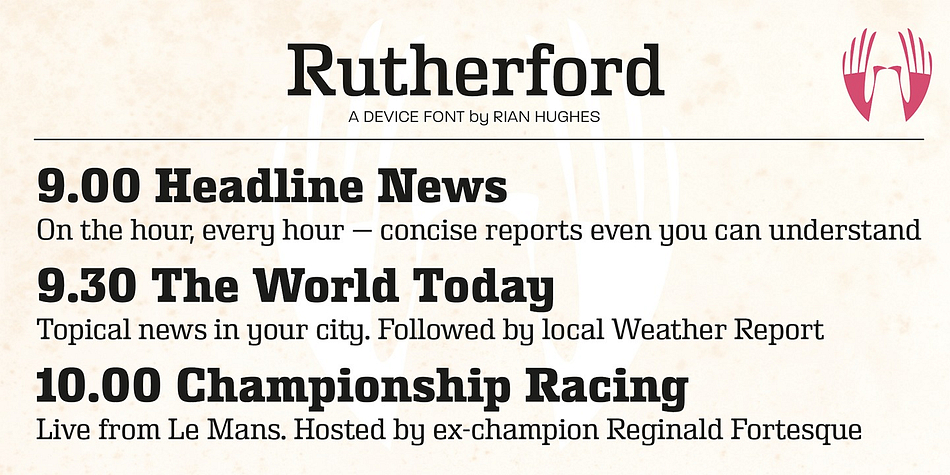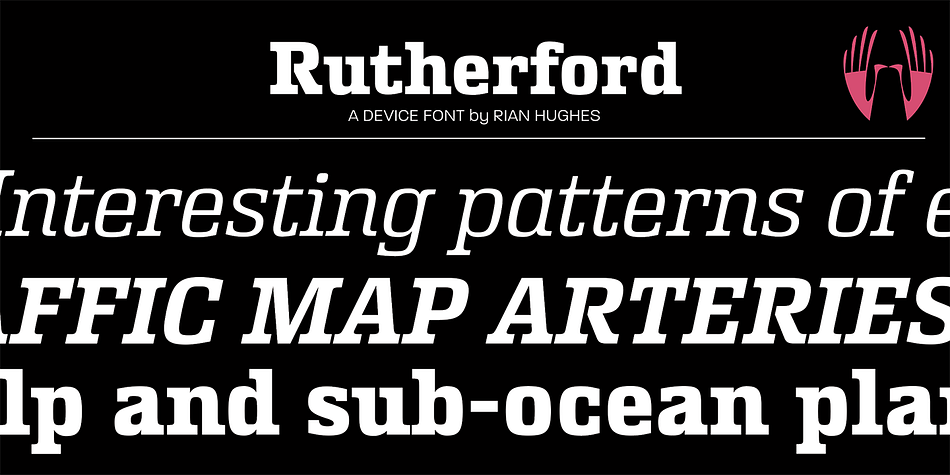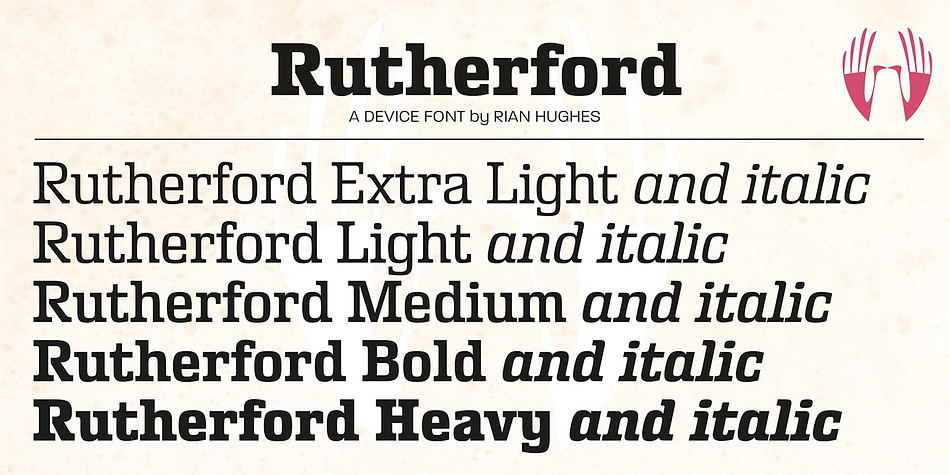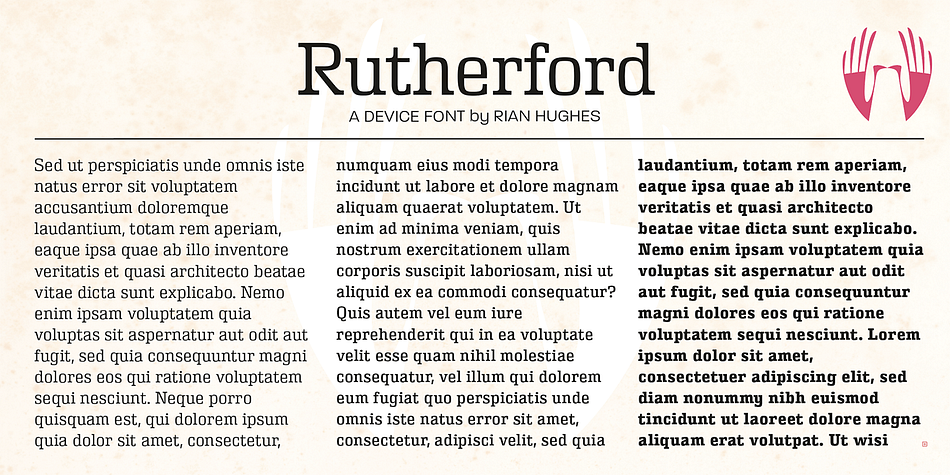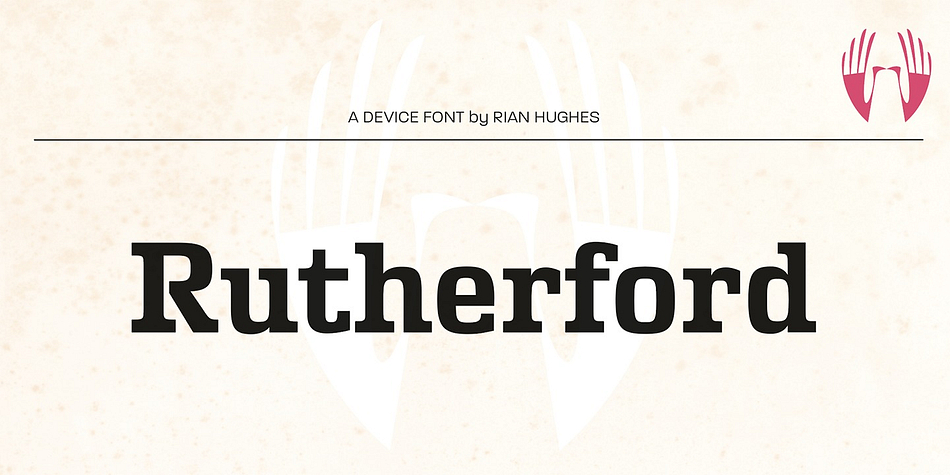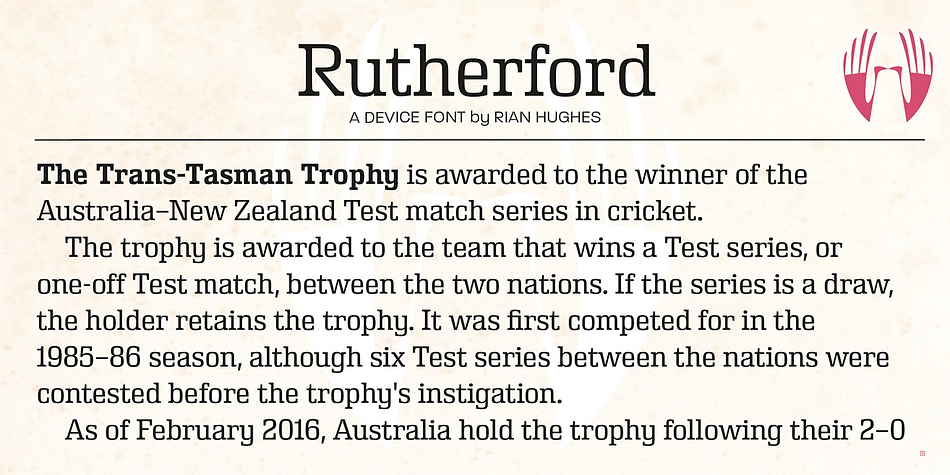
Designed by Rian Hughes, Rutherford is a serif font family. This typeface has ten styles and was published by Device.
Rutherford is clear, robust and authoritative, and reads well at small text sizes while also having the required heft for larger headlines. A wide range of weights makes it a versatile choice for magazines, branding, brochures and advertising.
A slightly condensed obround serif with squared stroke terminals. The t, j and f curve around to harmonize with the terminals on the a and g, as does the tail of the Q. The italic incorporates cursive forms on the ends of the lower right and upper left strokes, and uses a single-story a.
Includes full European Latin support and alternate designs for the Q and g in all weights.